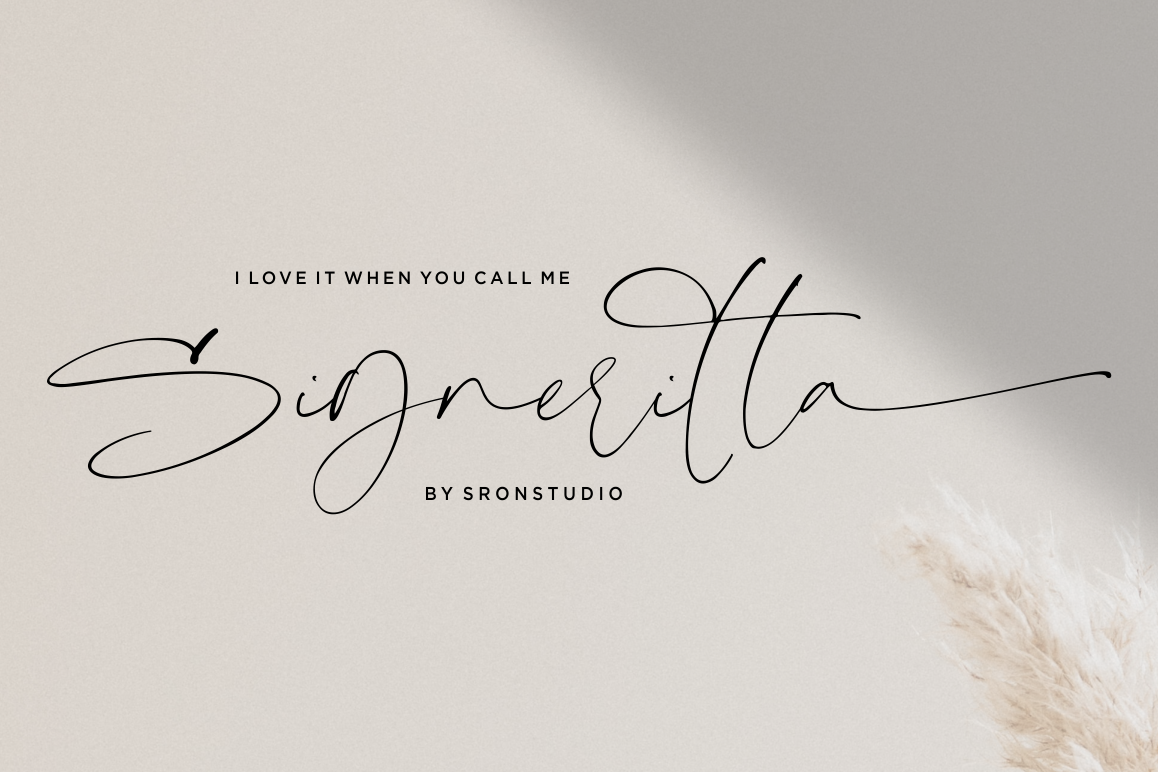
Signeritta - Elegant Signature
Signeritta
Introducing Signeritta - Elegant Signature
Signeritta is a elegant signature font, this font Is perfect for branding, invitation, stationery, wedding designs, social media posts, advertisements, product packaging, product designs, label, photography, watermark, special events or anything.
Signeritta comes with full set of uppercase and lowercase letters, 23 beautiful ligatures, lowercase beginning & ending swashes , multilingual symbols, numerals, punctuation.